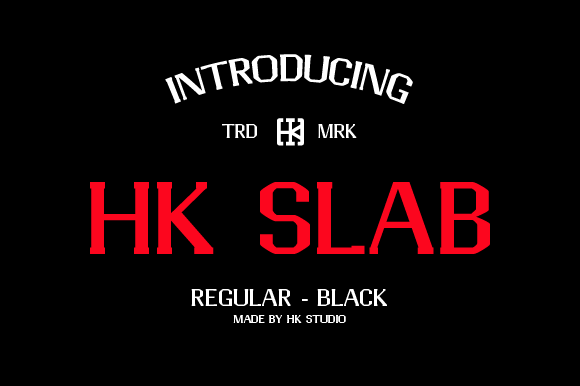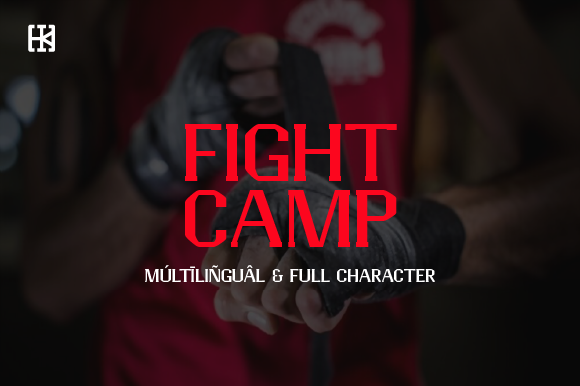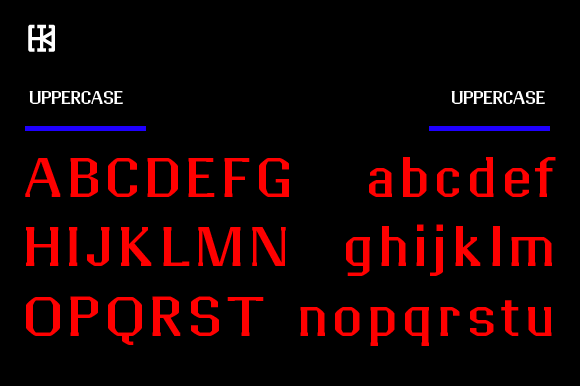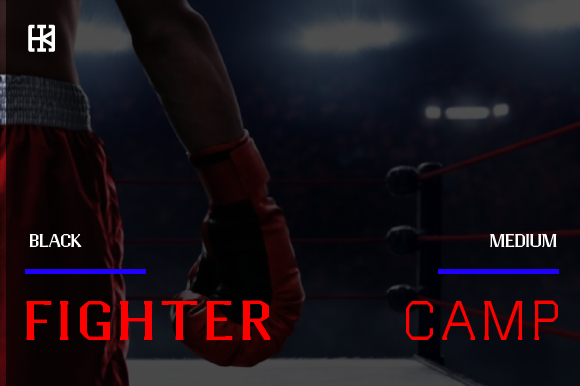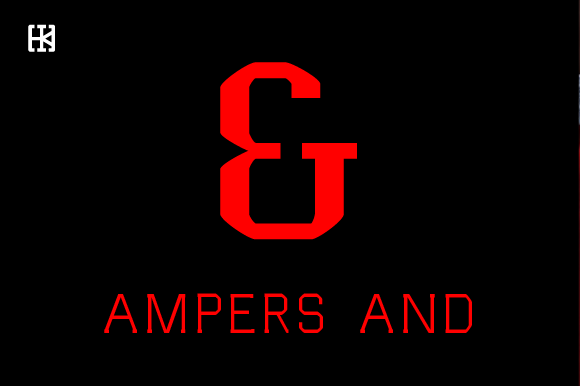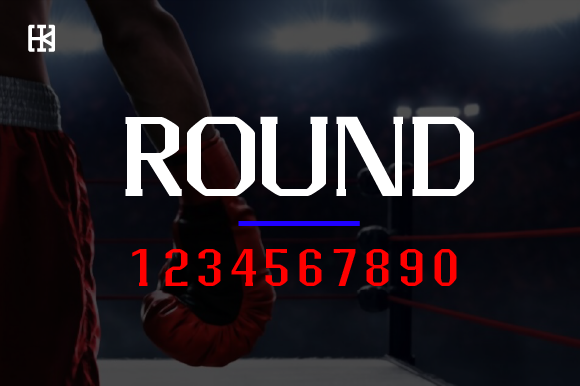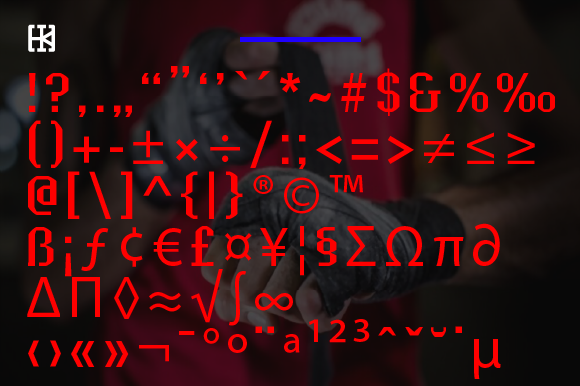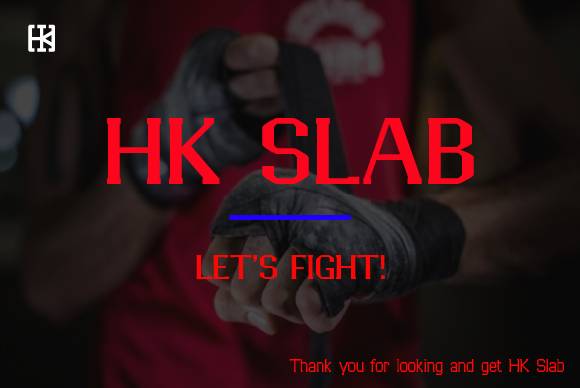
HK Slab
HK Slab: A Bold and Thick-Lettered Slab Serif Font
HK Slab is a distinctive slab serif font characterized by its bold design and thick letterforms. This versatile typeface is designed to be a wonderful asset to your font library, with the potential to enhance any creation regardless of the topic.
Key Features of HK Slab
• Bold Design: Features strong, eye-catching letterforms that command attention.
• Thick Lettering: Incorporates substantial characters for maximum visual impact.
• Slab Serif Structure: Maintains the characteristic thick, rectangular serifs typical of slab serif fonts.
• Versatile Application: Suitable for a wide range of projects, from print to digital media.
• Enhancement Quality: Designed to elevate and improve the visual appeal of any creative project.
Ideal Uses for HK Slab
HK Slab’s unique characteristics make it particularly well-suited for:
• Headlines and titles that need to grab attention
• Branding and logo design that requires a strong visual presence
• Poster and advertisement layouts
• Website headers and digital content aimed at creating impact
• Packaging design that needs to stand out on the shelf
When incorporating HK Slab into your designs, consider the following tips:
• Use for headlines or short blocks of text to maximize its bold impact
• Experiment with different sizes to highlight the font’s thick details
• Consider pairing with simpler, lighter weight fonts for body text to create contrast
• Take advantage of its versatility across various topics and themes
HK Slab is an excellent choice for designers looking to add a bold and thick-lettered slab serif font to their typographic toolkit. Its ability to enhance various design projects makes it stand out in the world of typography. Whether you’re working on logo designs, creating layouts for advertising, or developing content for any topic, HK Slab offers the perfect blend of boldness and versatility.